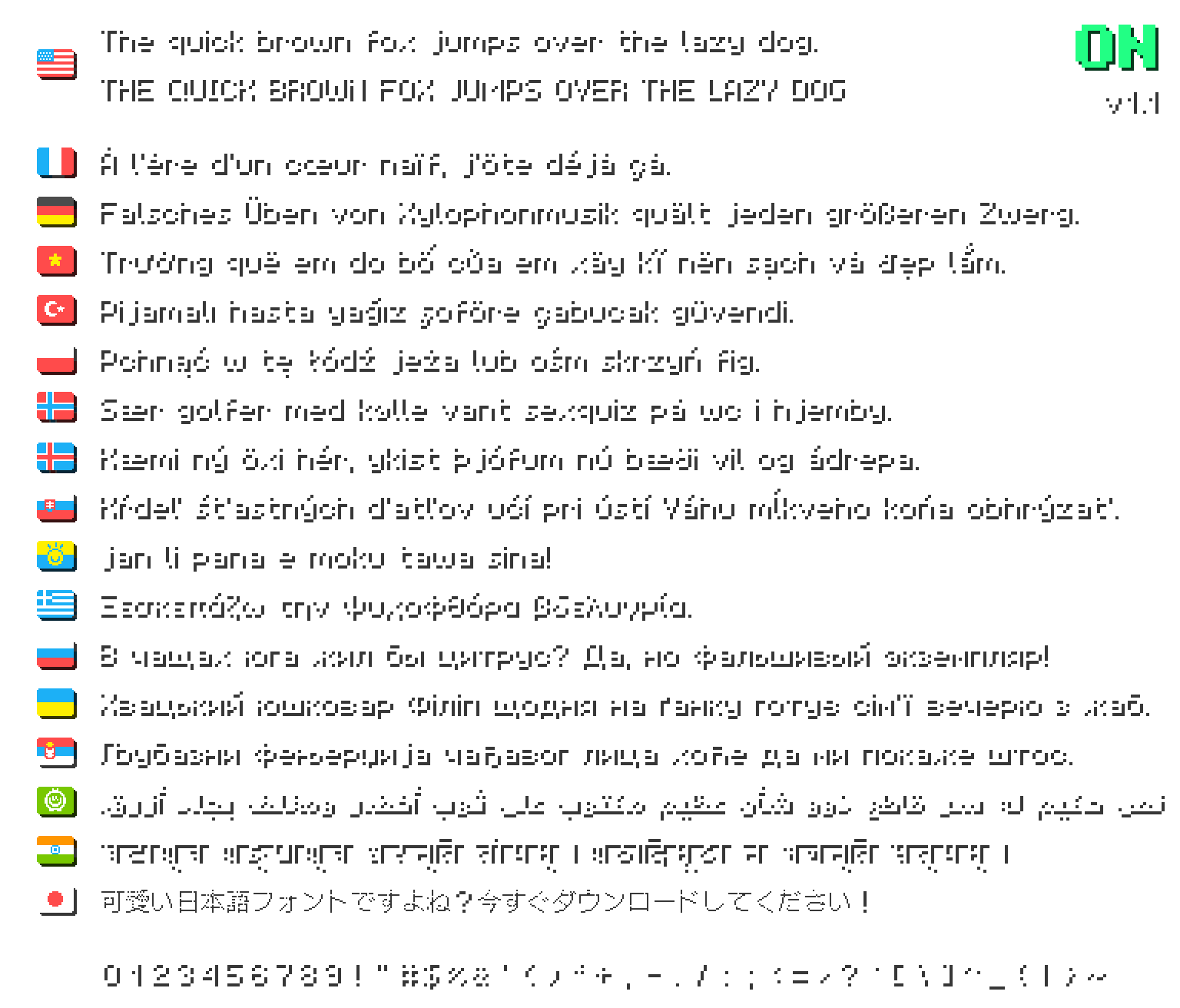
This Resource Pack's goal is to make characters more legible, importing my original shuriart™ font combined with DotGothic16 (free Google font). The characters are intentionally made rounder and smoother to remove the clutter and balance the weight of the letters.
- all Latin characters (including Vietnamese, Turkish, Polish, etc.)
- all Greek characters
- all Cyrillic characters (including Russian, Ukrainian, Kazakh, Serbian, etc.)
- all Arabic characters (including Persian and Jawi)
- all Devanagari characters (for Hindi)
- all CJK (Japanese font), Hiragana and Katakana characters
- all IPA characters, combining diacritics, mathematical operators, arrows, and many other symbols
- also, tweaked Galactic Alphabet
The font may appear quite similar at first, so here's a comparison:
You may also write mathematical expressions if you try: